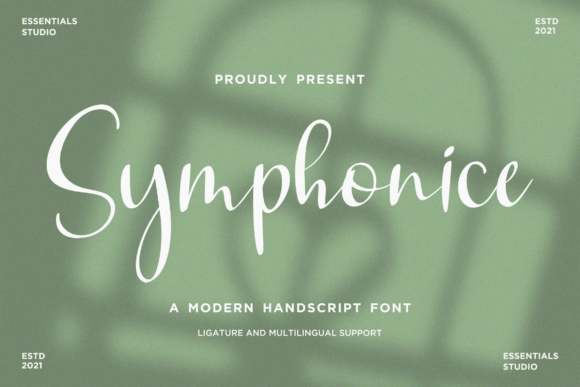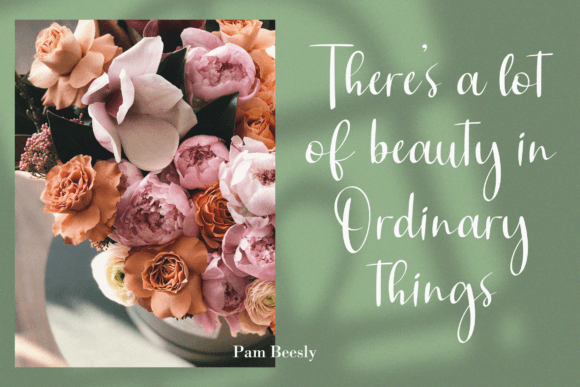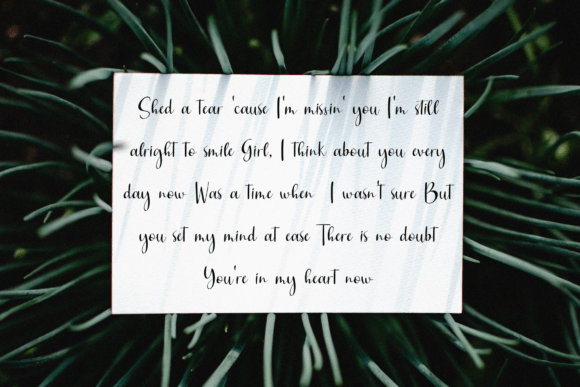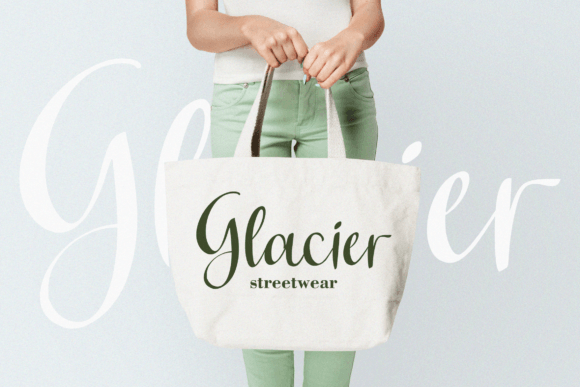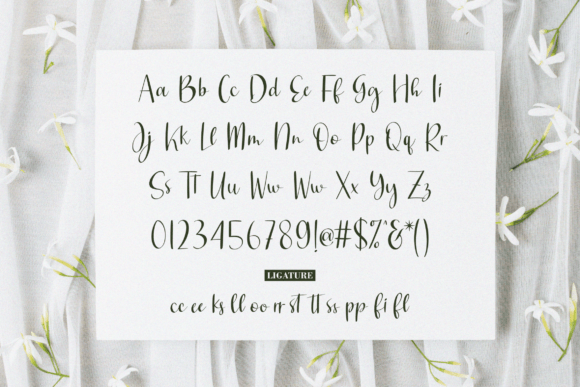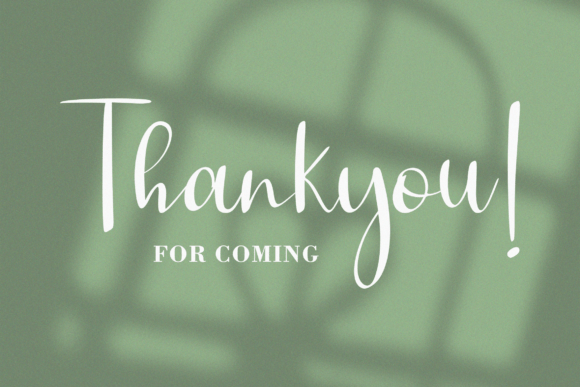
Symphonice Font
About Symphonice Font
“Symphonice” is a stunning script font that exudes elegance and sophistication. Meticulously crafted with intricate details, this font is a valuable addition to your font library, capable of elevating any creative project, regardless of its subject matter.
“Symphonice” font is a true work of art, characterized by its fine craftsmanship and attention to detail. Its script style imparts a sense of grace and personality to your designs, setting them apart in a world saturated with ordinary fonts. Whether you’re working on invitations, branding materials, or any visual content, this font’s unique character will breathe life and charm into your creations.
One of the standout features of “Symphonice” font is its sheer elegance. Its intricate strokes and delicate curves convey a refined aesthetic that is unparalleled. Beyond its beauty, this font possesses a timeless quality, ensuring that your designs will remain captivating and relevant for years to come. “Symphonice” font is an invaluable asset for both current and future projects.
Versatility is another strength of “Symphonice” font. It effortlessly adapts to a wide range of design requirements. Whether you’re aiming for a vintage vibe or a modern aesthetic, this font can be customized to align with your vision. Its flexibility extends to various project types, including wedding invitations, business collateral, posters, social media graphics, and more. With “Symphonice” font, your creative possibilities are limitless.
Imagine creating a wedding invitation with “Symphonice” font. The font’s intricate details and flowing script instantly set the tone for a romantic and unforgettable celebration. For business branding, it seamlessly blends professionalism with a touch of personality, helping your brand stand out in a competitive landscape.
Furthermore, “Symphonice” font boasts extensive language support, ensuring that it can be seamlessly integrated into international projects. Regardless of whether your target audience speaks English, Spanish, French, or any other language, this font is ready to enhance your designs.
In summary, “Symphonice” font is an exceptional choice for those seeking a script typeface that radiates elegance, sophistication, and timeless appeal. Its adaptability, versatility, and enduring style make it the perfect companion for a wide variety of design projects. Embrace the enchanting allure of “Symphonice” font and watch it transform your creative endeavors into something truly exceptional.